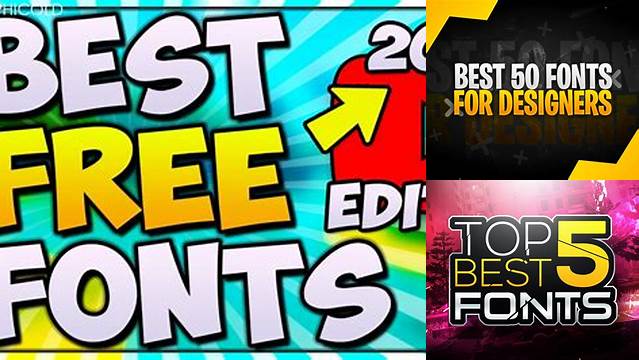
Best Fonts For Thumbnails: Boost Your Clicks!
Choosing the right fonts for your thumbnails can significantly impact how many people click on your videos. Guys, a killer thumbnail is like the first handshake – it needs to be strong, memorable, and inviting! So, let's dive into the nitty-gritty of fonts and how they can make your thumbnails pop.
Why Fonts Matter in Thumbnails
Fonts are more than just letters; they convey emotion and style. In the fast-paced world of online videos, your thumbnail is often the first (and sometimes only) chance to grab someone’s attention. The font you choose communicates the tone and content of your video. Imagine a cooking tutorial with a font that looks like it belongs on a horror movie poster – confusing, right? The right font makes your thumbnail legible and engaging, ensuring potential viewers can quickly understand what your video is about.
Consider the psychology of fonts. Some fonts are perceived as playful and fun, while others are seen as serious and professional. A bubbly, cartoonish font might be perfect for a children’s video, but it would look out of place on a documentary thumbnail. Think about your target audience and the message you want to send. A clear, bold font can convey confidence and authority, making viewers more likely to trust your content. On the other hand, a more whimsical font can suggest creativity and entertainment. Essentially, your font is part of your branding, and consistency across your thumbnails can help viewers instantly recognize your content. It’s not just about aesthetics; it’s about making a connection with your audience and ensuring they know what to expect when they click. The goal is to create a thumbnail that not only stands out but also accurately represents your video’s content and tone, encouraging clicks and views.
Key Characteristics of Effective Thumbnail Fonts
So, what makes a font a good choice for a thumbnail? Several key characteristics can make or break your thumbnail's effectiveness. Legibility is paramount. If viewers can’t read the text on your thumbnail, it doesn’t matter how stylish the font is. Aim for fonts that are clear and easy to read at a glance, even on small screens. Bold fonts often work best because they stand out against various backgrounds. Think about contrast as well. Your font color should contrast sharply with the background to ensure the text pops. White or bright-colored text on a dark background, or vice versa, can make your message much more visible.
Scalability is another critical factor. Thumbnails are viewed on a range of devices, from large desktop monitors to small smartphone screens. A font that looks great on a big screen might become a blurry mess on a mobile device. Choose fonts that remain legible even when scaled down. Test your thumbnails on different devices to ensure the text remains readable. Personality is also key. Your font should match the tone and style of your content. A sleek, modern font might be perfect for a tech review, while a more playful font could suit a gaming video. Consider your brand’s identity as well. If you have established a certain style, your thumbnail fonts should align with that. Consistency in font choice can help viewers instantly recognize your videos. Finally, think about the overall impact of the font in conjunction with other design elements. It should complement the images and colors you use, not compete with them. A harmonious design will draw viewers in and make them more likely to click.
Top Font Recommendations for Thumbnails
Alright, let's get into some specific font recommendations that are proven winners for thumbnails. These fonts are popular for a reason – they're legible, impactful, and visually appealing. One of the top choices is Montserrat. This sans-serif font is clean, modern, and highly readable. Its bold versions are particularly effective for thumbnails, ensuring your text stands out. Another fantastic option is Bebas Neue. This tall, condensed sans-serif font is incredibly eye-catching and works well for titles and short phrases. It has a strong presence without being overwhelming.
Impact is another classic choice. It’s a bold, condensed sans-serif font that lives up to its name. Impact is especially useful for thumbnails that need to convey a sense of urgency or excitement. For something a bit more unique, consider Roboto. This sans-serif font family is versatile and includes a variety of weights and styles, making it easy to find the perfect fit for your thumbnail. Roboto is clean and modern, but it also has a friendly, approachable feel. If you're aiming for a more playful or informal vibe, try Luckiest Guy. This hand-drawn style font adds a touch of personality and works well for videos targeting a younger audience. Arial and Helvetica are also reliable options, though they are quite common. They are highly legible and work well in a variety of contexts. Experiment with different font combinations to find what works best for your style. Pairing a bold headline font with a simpler sub-headline font can create a balanced and visually appealing thumbnail. Ultimately, the best font is one that grabs attention, communicates your message clearly, and fits your brand.
How to Pair Fonts Effectively in Thumbnails
Pairing fonts effectively in thumbnails can elevate your design from good to great. It’s like putting together a stylish outfit; the right combination can make a real statement. The key is to create visual harmony and contrast. You don't want your fonts competing for attention, but you also don't want them to be so similar that they blend together. A common strategy is to pair a bold, eye-catching font for the main title with a simpler, more legible font for the subtitle or additional text. This creates a clear hierarchy and makes your message easier to digest.
Consider using a sans-serif font for the headline and a serif font for the body text or vice versa. Sans-serif fonts, like Montserrat or Bebas Neue, are clean and modern, while serif fonts, like Times New Roman or Georgia, have a more traditional feel. Mixing these styles can add visual interest and make your thumbnail more dynamic. Avoid using more than two fonts in your thumbnail, as this can make it look cluttered and confusing. Stick to one or two fonts and experiment with different weights and styles within those families. For example, you could use a bold version of a font for the headline and a regular or light version for the subtext. Think about the overall tone of your video and choose fonts that reflect that. A playful, whimsical video might benefit from a more quirky font pairing, while a serious, informative video might require a more professional and straightforward combination. Test your font pairings on different devices to ensure they remain legible at various sizes. A font pairing that looks great on a desktop might not work as well on a mobile screen. Ultimately, the best font pairing is one that enhances your message and makes your thumbnail more engaging and clickable.
Best Practices for Font Size and Placement
When it comes to font size and placement in thumbnails, there are some golden rules to follow. Guys, you want your text to be the star of the show, but not so overwhelming that it overshadows the visuals. Font size is crucial for legibility. Your text should be large enough to be easily read on small screens, like smartphones, where most people will view your thumbnails. A good rule of thumb is to aim for a font size that takes up a significant portion of the thumbnail space, but without crowding the image.
Placement is equally important. Think about where your text will be most visible and impactful. Avoid placing text in areas that are too busy or cluttered, as it can get lost in the background. Clear, open areas of your thumbnail are ideal spots for text. Consider using contrast to your advantage. Place light-colored text on dark backgrounds and vice versa to make your message pop. Be mindful of the "safe area" – the portion of the thumbnail that will always be visible, regardless of the device or platform. Keep your most important text within this area to ensure it’s always seen. Experiment with different text layouts to find what works best. Try placing your text at the top, bottom, or sides of the thumbnail, or even diagonally across the image. Don't be afraid to break the mold and try something unique, but always prioritize legibility. Remember, the goal is to make your thumbnail as clear and engaging as possible, so potential viewers can instantly understand what your video is about and click to watch. By paying attention to font size and placement, you can significantly improve the effectiveness of your thumbnails and attract more viewers.
Tools and Resources for Finding and Using Thumbnail Fonts
Finding and using the perfect fonts for your thumbnails has never been easier, thanks to a plethora of tools and resources available online. Guys, you don't need to be a design guru to create eye-catching thumbnails! One of the best resources is Google Fonts. It offers a vast library of free, high-quality fonts that you can use in your projects. Google Fonts makes it easy to browse, preview, and download fonts, and many are optimized for web use, meaning they'll look great on any device. Another fantastic option is Adobe Fonts, which is included with Adobe Creative Cloud subscriptions. Adobe Fonts offers a wide variety of fonts, including many premium options that you won't find anywhere else. Their integration with Adobe Photoshop and other design tools makes it seamless to use these fonts in your thumbnail designs.
For those looking for unique and creative fonts, websites like DaFont and Font Squirrel are excellent resources. These sites offer a wide range of free and commercial fonts, including many that are perfect for thumbnails. However, be sure to check the licensing terms before using any font from these sites, as some may have restrictions on commercial use. When it comes to using fonts in your thumbnail designs, tools like Canva and PicMonkey are incredibly helpful. These online design platforms make it easy to create stunning thumbnails, even if you have limited design experience. They offer a wide range of templates, graphics, and, of course, fonts that you can use to customize your thumbnails. Photoshop is another powerful tool for creating thumbnails, offering a wide range of features and options for typography and design. However, it can be a bit more complex to learn than Canva or PicMonkey. Experiment with different tools and resources to find what works best for you. The key is to find fonts that are legible, visually appealing, and match the style of your content. With the right tools and resources, you can create thumbnails that stand out and attract more viewers.
Common Mistakes to Avoid When Choosing Thumbnail Fonts
Choosing the wrong fonts for your thumbnails can be a costly mistake. Guys, you want to attract clicks, not repel them! One of the most common errors is using fonts that are too difficult to read. If viewers can't decipher the text on your thumbnail, they're not going to click. Avoid overly ornate or decorative fonts, especially for headlines or crucial information. Stick to fonts that are clear and legible, even at small sizes. Another frequent mistake is using too many fonts. A thumbnail with multiple fonts can look cluttered and confusing. As we discussed earlier, it's best to stick to one or two fonts and use different weights or styles within those families to create visual interest. Don't forget contrast. Low contrast between your text and background can make your message disappear. Ensure your text stands out by using contrasting colors. Light text on a dark background, or vice versa, is a reliable strategy.
Ignoring your brand identity is another pitfall. Your thumbnails should be consistent with your overall branding. If you have a specific font or style you use in your videos or other marketing materials, use it in your thumbnails as well. This helps viewers instantly recognize your content. Overcrowding your thumbnail with text is also a common error. Remember, less is often more. Your thumbnail should be visually appealing and easy to understand at a glance. Too much text can overwhelm viewers and make them less likely to click. Ensure the font size is appropriate for the thumbnail size. Text that is too small will be difficult to read, while text that is too large can look overwhelming and unprofessional. Finally, avoid using fonts that are outdated or overused. Trends in typography come and go, so it's essential to stay up-to-date and choose fonts that look fresh and modern. By avoiding these common mistakes, you can ensure your thumbnails are visually appealing, legible, and effective at attracting viewers.
Choosing the right font is crucial for thumbnail design. It enhances visual appeal, legibility, and brand consistency, ultimately boosting click-through rates and audience engagement. By avoiding common mistakes and following best practices, you can craft thumbnails that truly stand out.